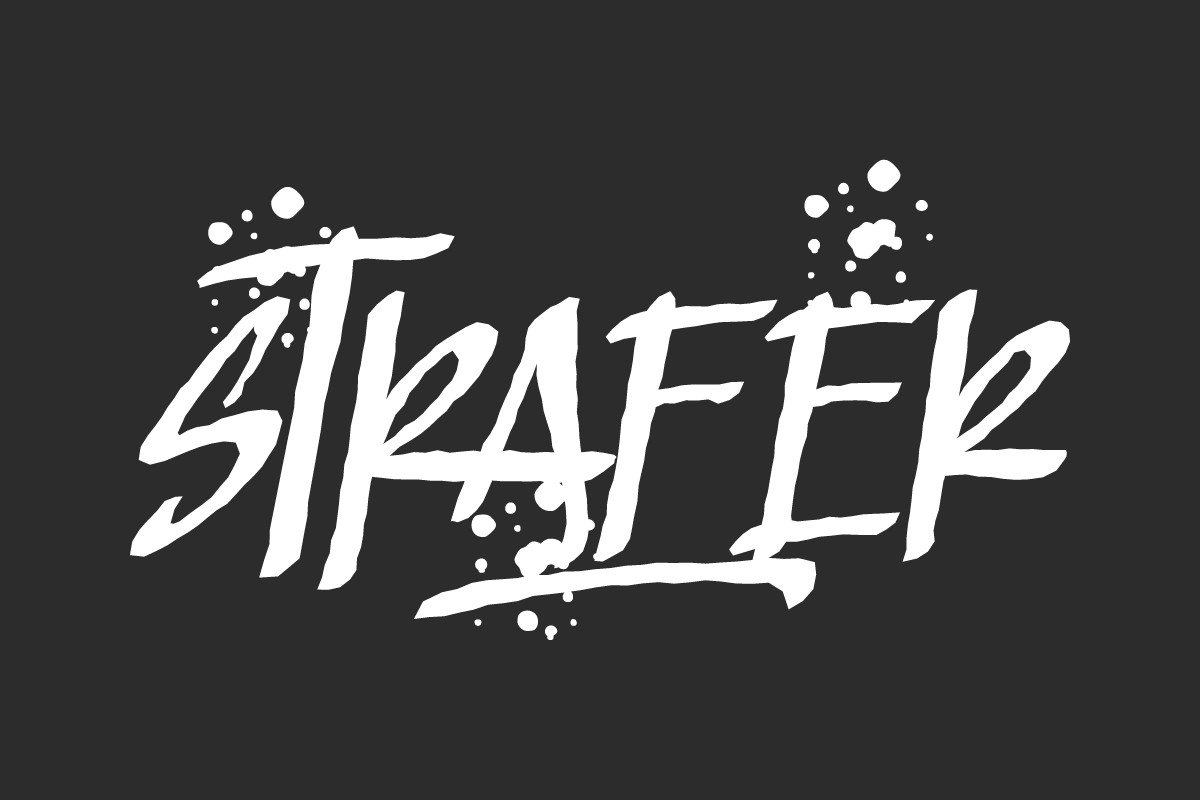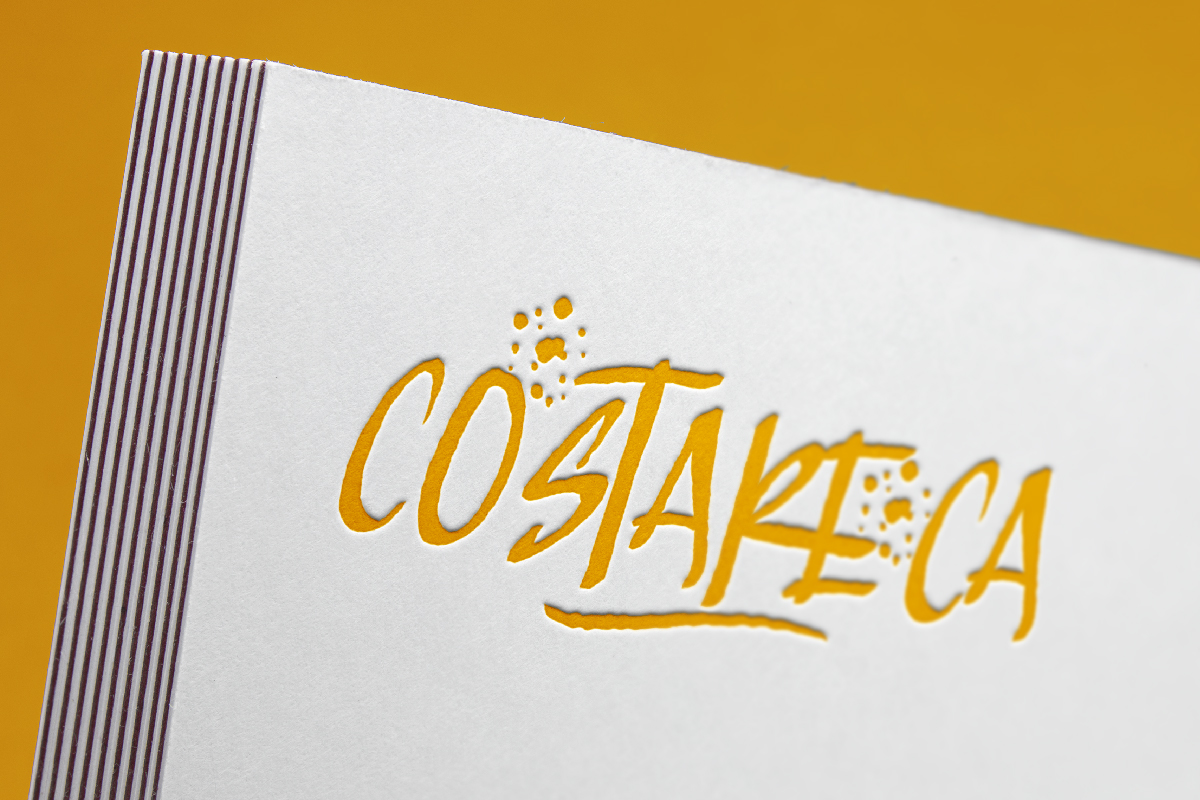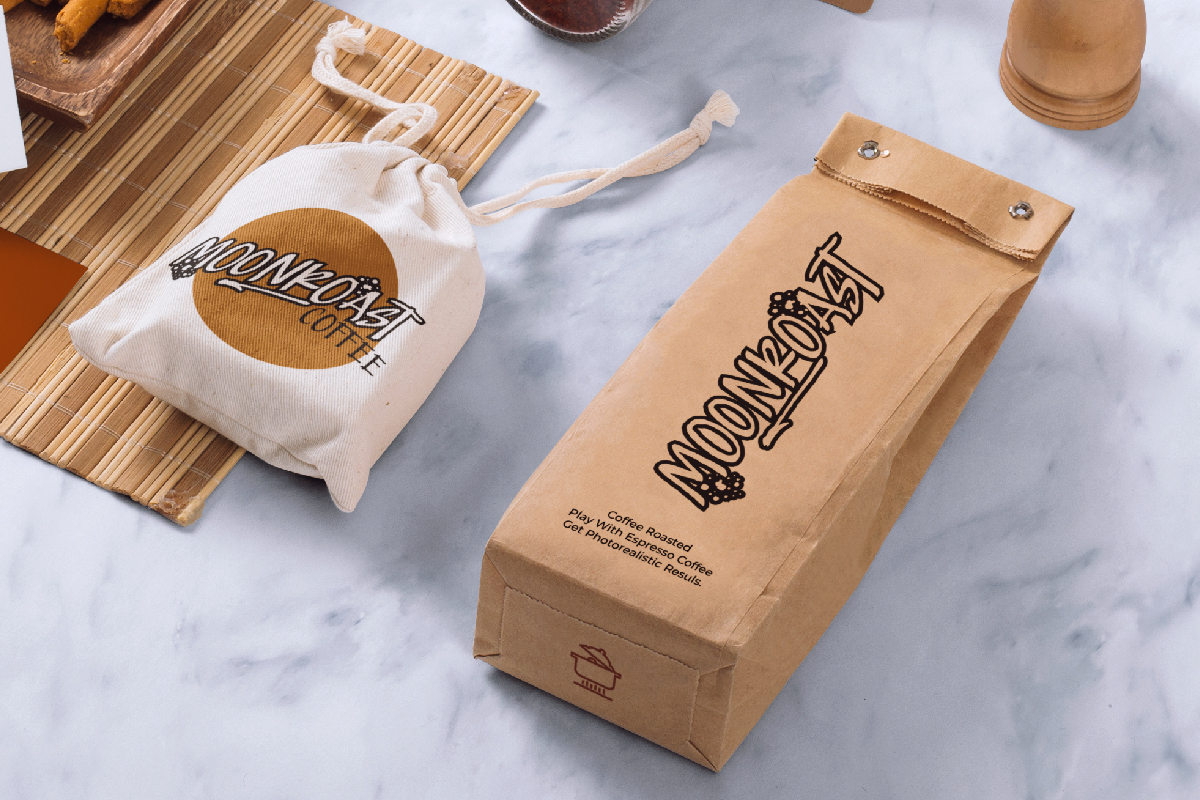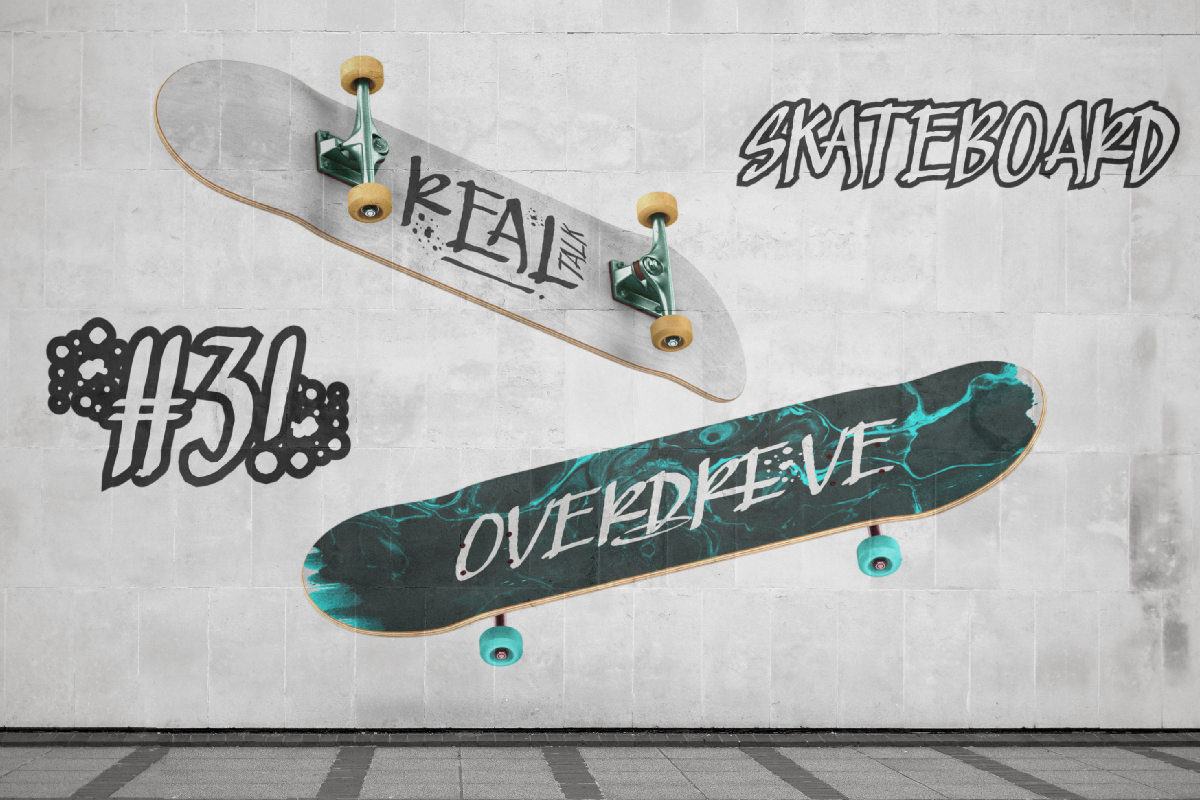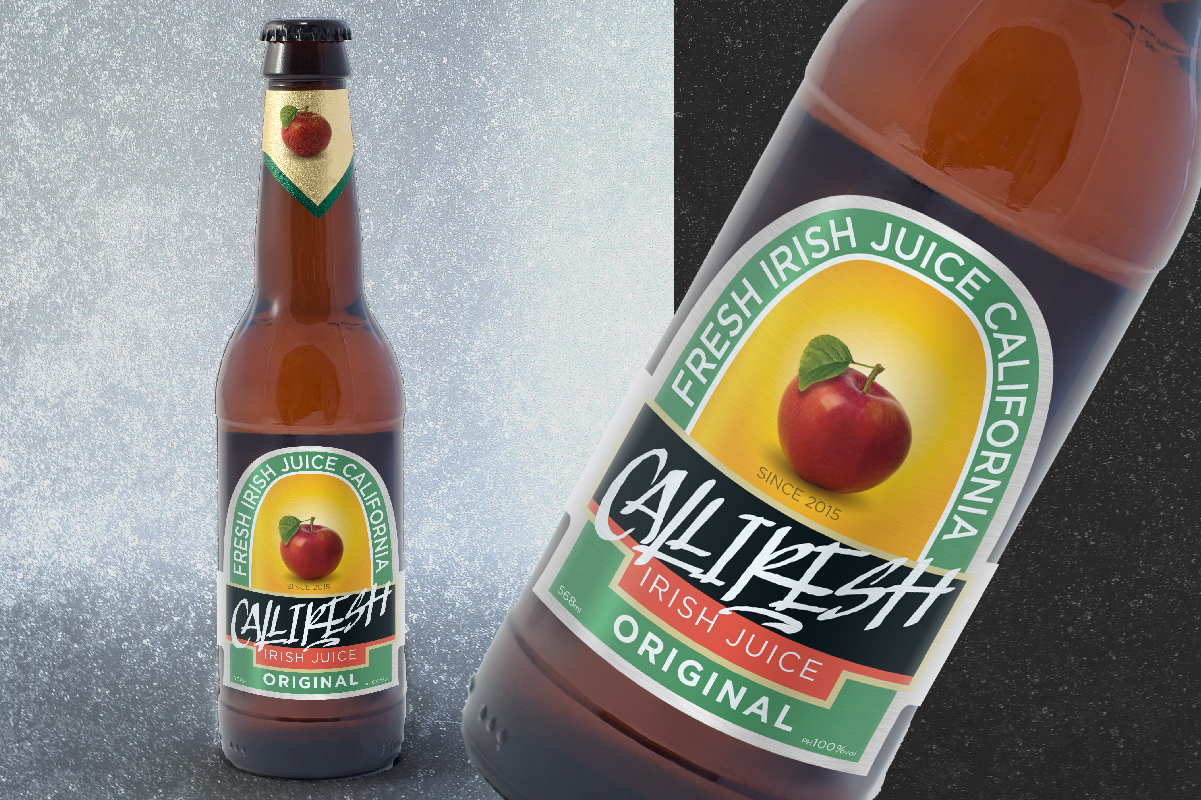
Strafer Font
Strafer Display Font
This is a graffiti display font with street style font. This font is carefully crafted on each letter so we can make sure it looks good and delivers the perfect base case. This one should make your designs instantly professional and jaw-dropping!
Strafer Font includes full set of one font size for Basic Character, Numerals and Punctuation. This font be present to create amazing displays that will be perfect your extraordinary projects. Strafer will be great for fashion, game graffiti, magazine, packaging, signage etc